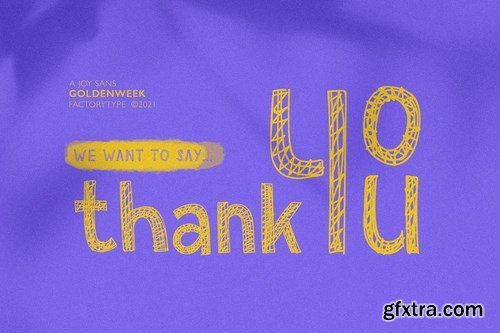
Goldenweek Font Duo is a joyful and entertaining font set for your children's projects. Every letter has been meticulously crafted to make your text look stunning. This font's modern, unique style makes it ideal for a variety of projects, including quotes, blog headers, posters, weddings, branding, logos, fashion, apparel, letters, invitations, stationery, and more.